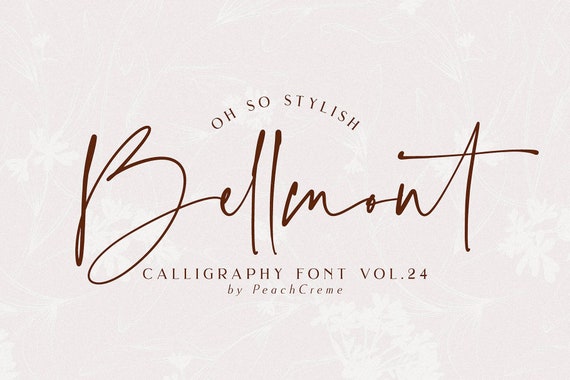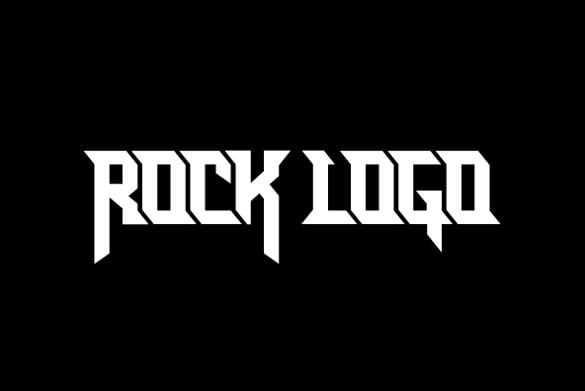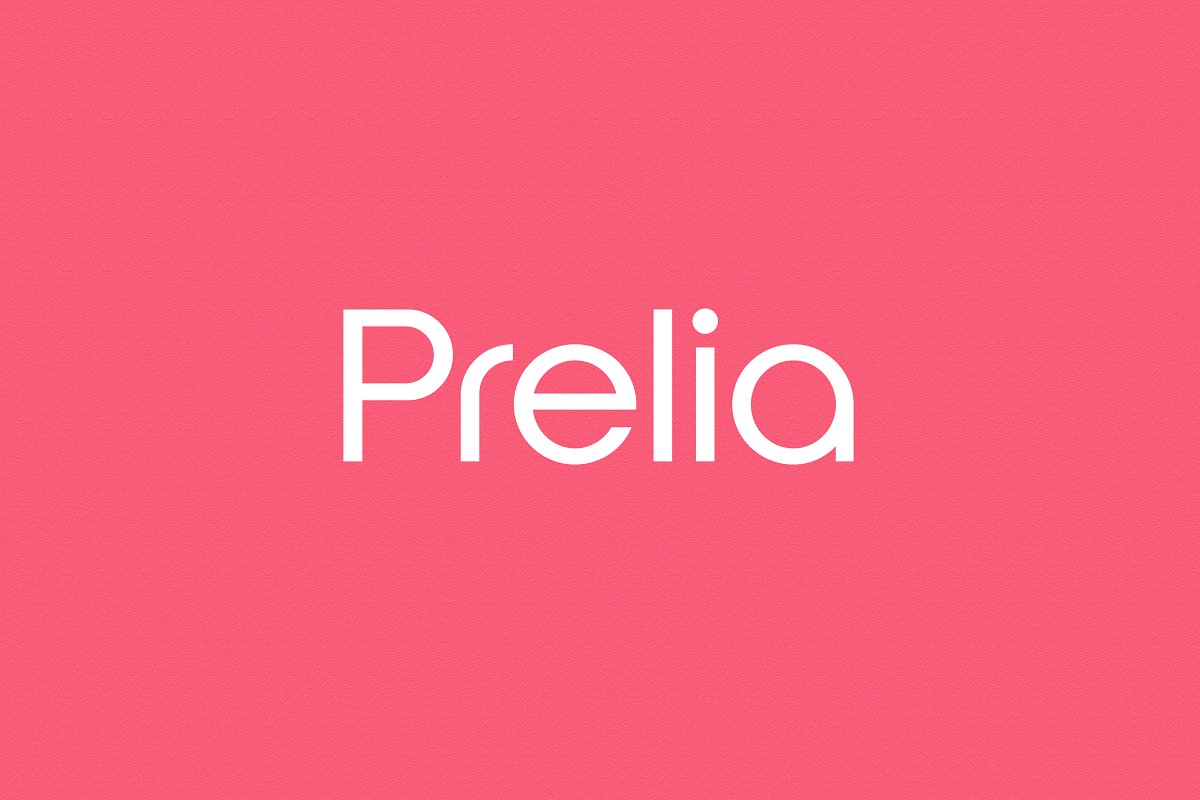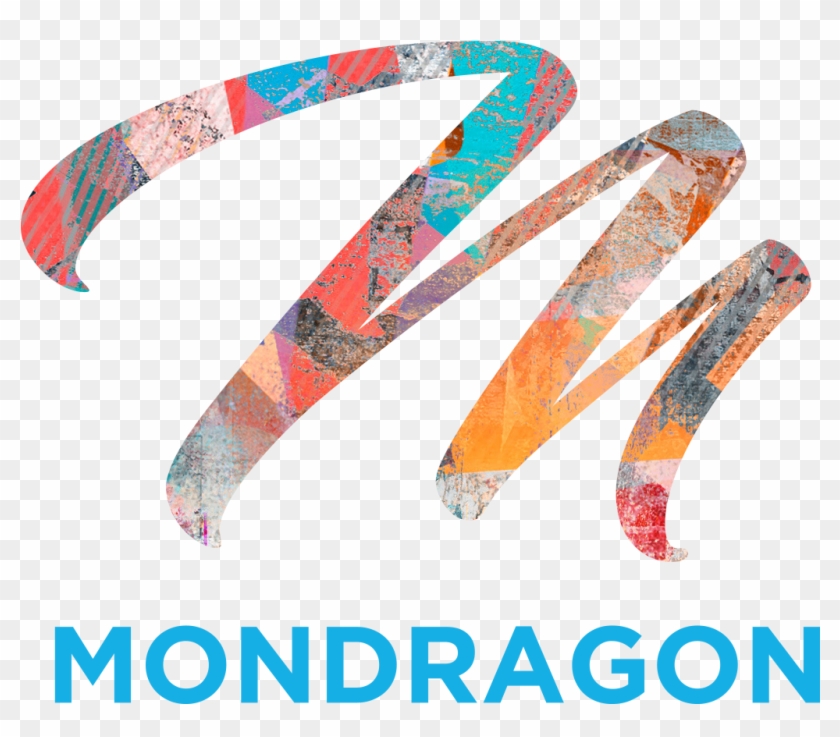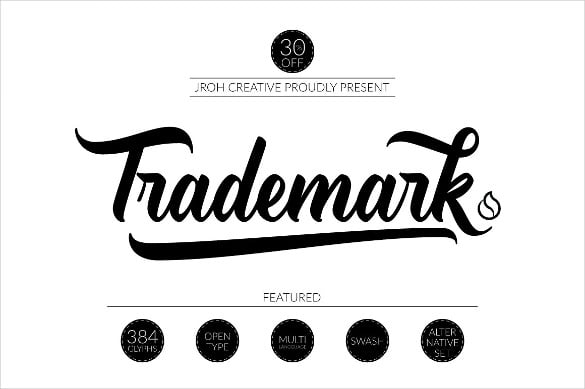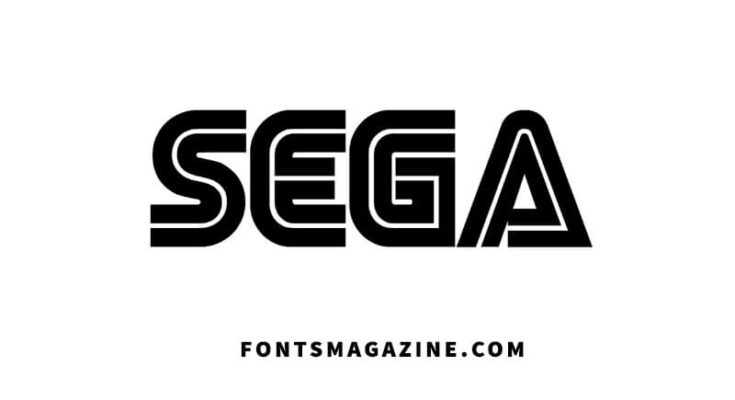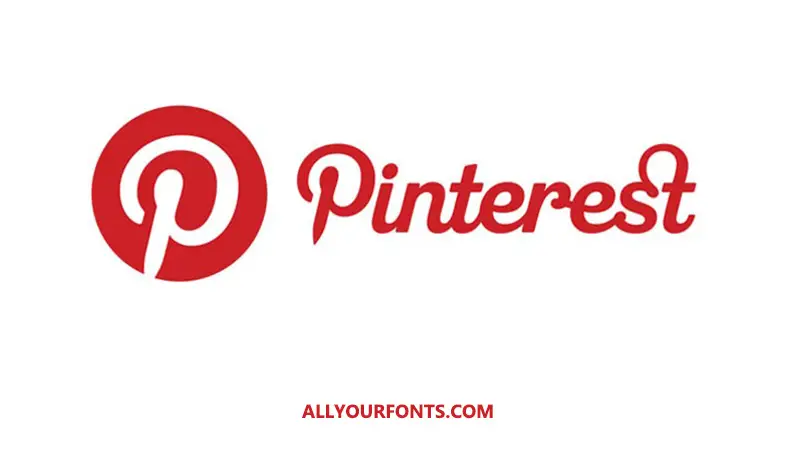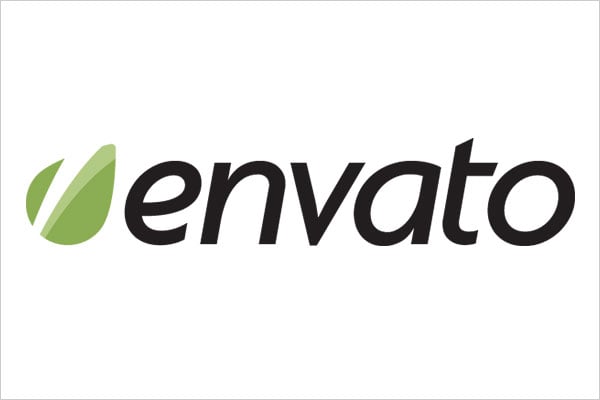
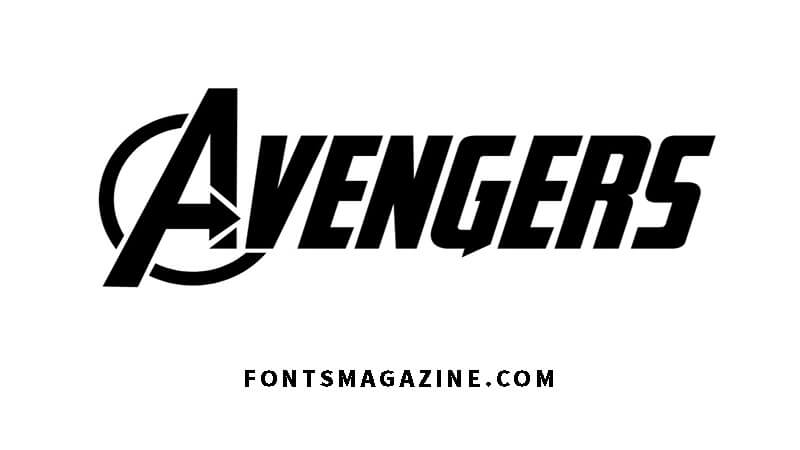
If you are looking to design logo templates for luxury products then these files are perfect for you.
Looking for Modern Logo fonts. In this pack you get 14 different fonts for designing awesome templates. Daft Punk Logo Font Free Download.
April 26 2021 May 18 2021 GD Fonts Typeface Brush Logo. It makes great fitness fonts or gym fonts. More InfoDownload Modern Logo Font Duo.
Introducing the logo font called Yackien font. Uni Sans is a popular typeface which makes a good font for logos t-shirt designs and sports logo fonts. This font made for branding and logo font purposes but still elegant for other project designs.
The default font a font created by MetroG is very similar to the letter. Serif fonts have a classic look to them and the serifs are also known to aid in the readability of text. Looking for Cool Logo fonts.
Every font is free to download. The Daft Punk logo has its logotype in straight bolt red lettering. Click to find the best 700 free fonts in the Modern Logo style.
The role of fonts in designing logos can never be disputed. Daft is a duet of punk music that was formed in 1993 in Paris. Download 58000 free fonts for Windows and Mac.
Uni Sans was created by font designers SvetSimov AniPetrova and VasilStanev in 2008. Yackien yakin is the Indonesian language that the meaning is believed trust and convincing. Yackien Logo Font Download.
Icons 2019 by elharrak. Logo fonts are essential for the visual appearance of your brand name.